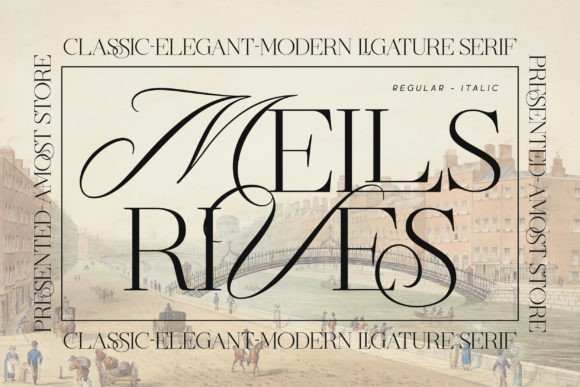
Dive into the elegance and sophistication of Mells Rives, a captivating serif font that adds a touch of timeless charm to your creative projects. Its meticulously crafted curves and delicate details evoke a sense of heritage and refinement, making it the perfect choice for modern logos, branding, invitations, and any design where you want to leave a lasting impression.
With its PUA encoding, Mells Rives grants you effortless access to a world of glyphs and swashes, allowing you to unleash your creativity and design with boundless possibilities. Whether you're a seasoned designer or just starting your journey, this font is your gateway to creating designs that captivate and inspire.